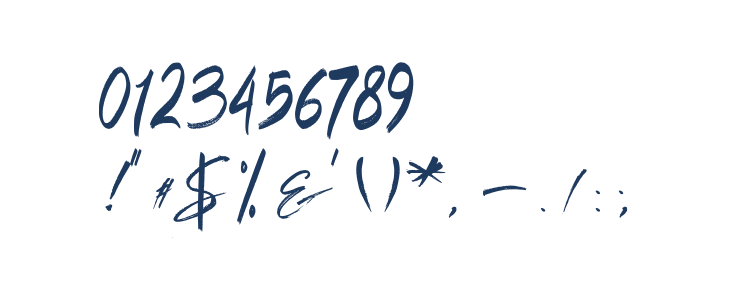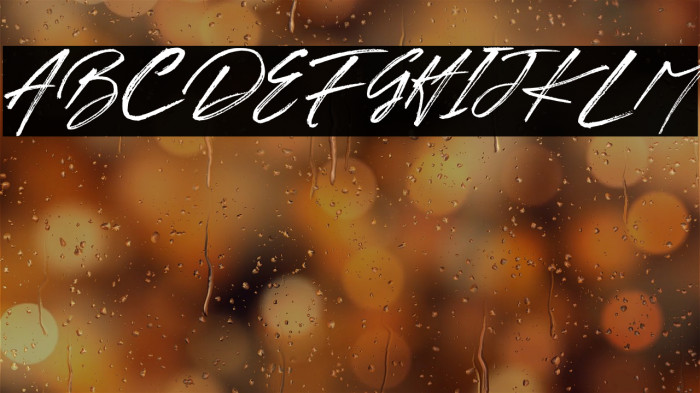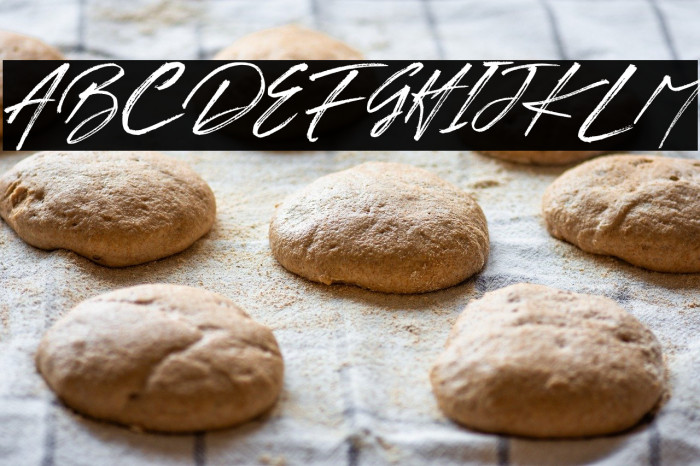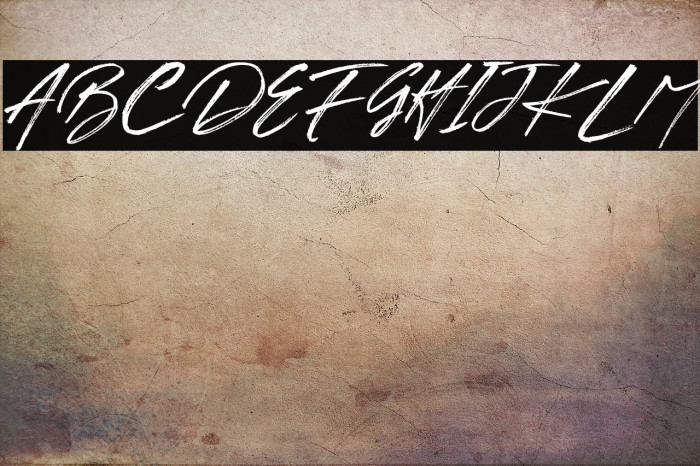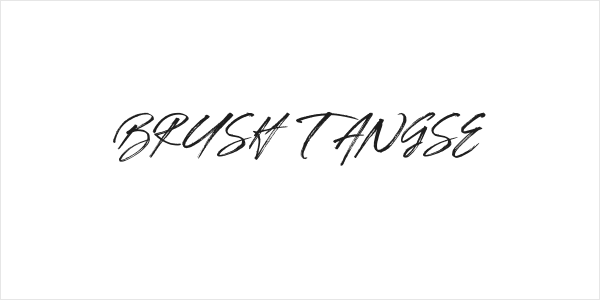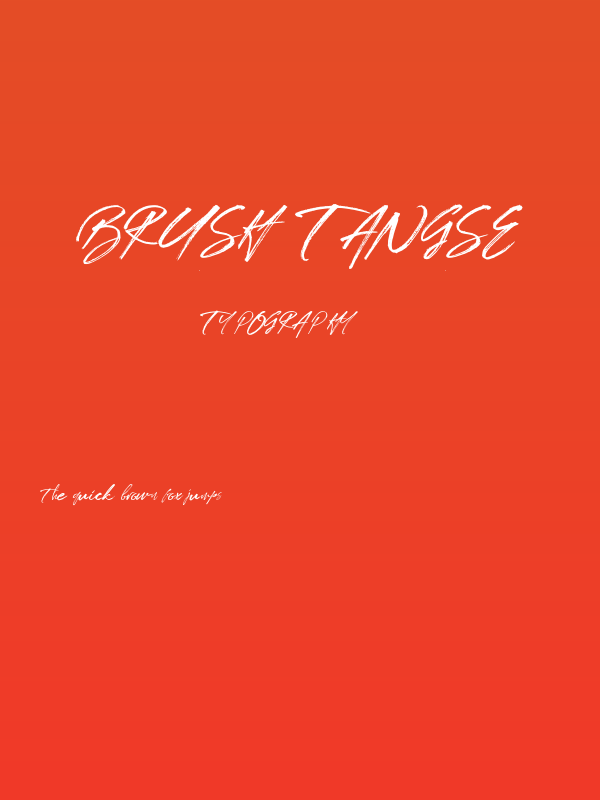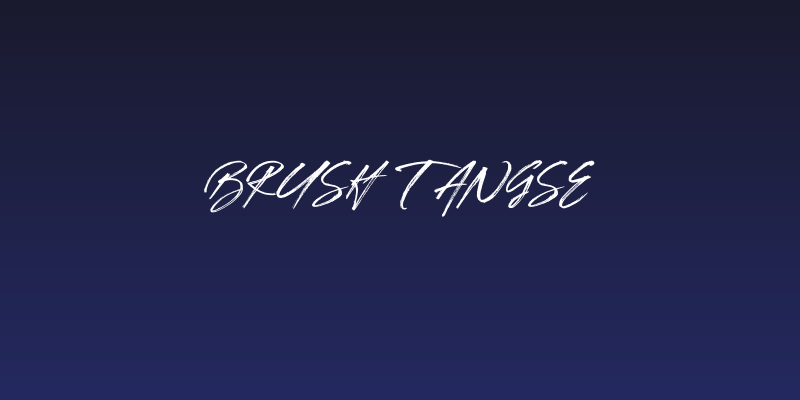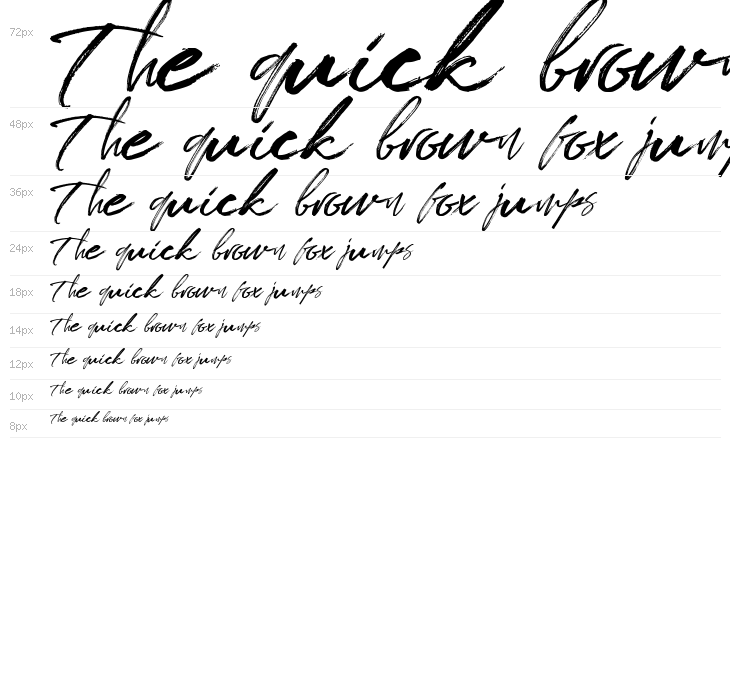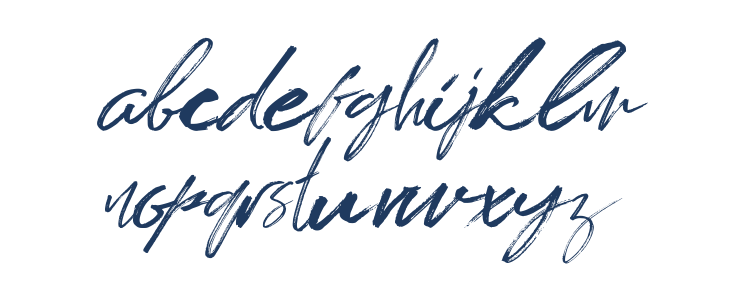
BRUSH TANGSE Font
BRUSH TANGSE Description
This font exudes a dynamic and energetic style, characterized by its brush-like strokes that mimic the fluidity and spontaneity of hand-painted lettering. The uppercase and lowercase letters maintain a consistent slant, adding to the sense of motion and liveliness. The strokes vary in thickness, creating a natural and organic feel, while the edges are slightly rough, enhancing its artistic and informal appearance. The numerals and special characters follow the same expressive style, making the font versatile for creative projects. Its unique aesthetic is perfect for designs that require a personal touch or a bold statement.
| Proposed Projects | Ideal for branding, posters, invitations, and artistic projects that require a personal and energetic touch. |